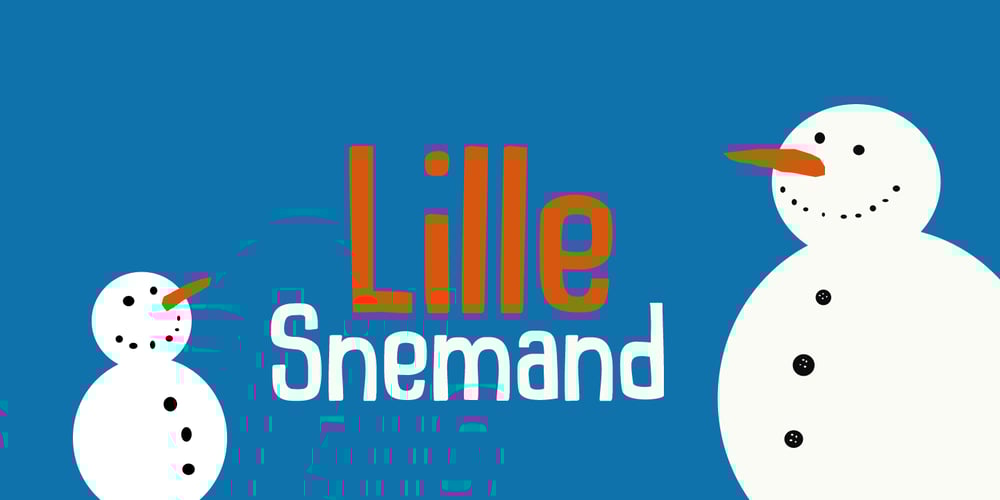
Lille Snemand Font Family was designed by David Kerkhoff and published by Hanoded. Lille Snemand contains 2 styles and family package options. Lille Snemand, in Danish, means Little Snowman – like the Little Mermaid, but then colder… Lille Snemand is kin to the original Snemand font, which is an all caps typeface, but unlike its big brother, Lille Snemand comes with lowercase glyphs. It is a very legible font and has that ‘unevenish’ look – making it a great typeface for packaging and books.